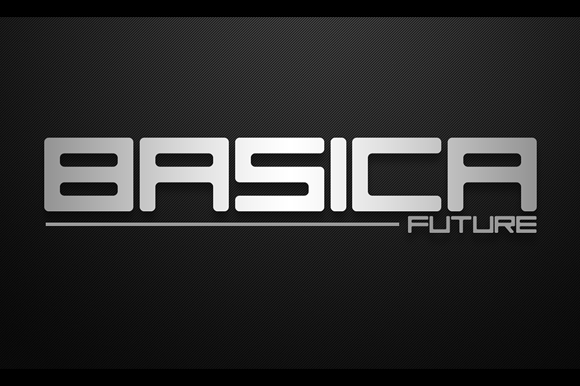
Craft your designs with an extraordinary touch using Basica - Future, a bold and captivating display font that will elevate your creations to new heights. This masterpiece, crafted by the skilled hands of Qbotype Fonts, exudes a modern and futuristic charm that is guaranteed to turn heads.
Step into a realm of limitless creativity as Basica - Future empowers you to express your individuality with flair. Its striking and distinct character will add a touch of boldness to your logos, posters, and headlines, demanding attention at every turn. Unleash your imagination and explore the endless possibilities that await you with this extraordinary font.
Indulge in the visual feast that Basica - Future presents. Its unique letterforms, imbued with a touch of whimsy, will transform your designs into captivating works of art. Each character dances across the page with an energy that evokes a sense of wonder and excitement. Embrace the future of typography with Basica - Future and elevate your designs to extraordinary heights.